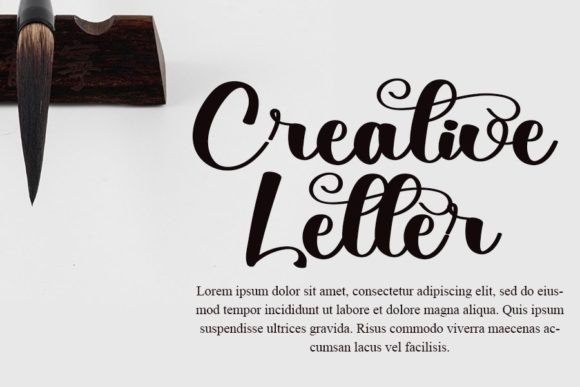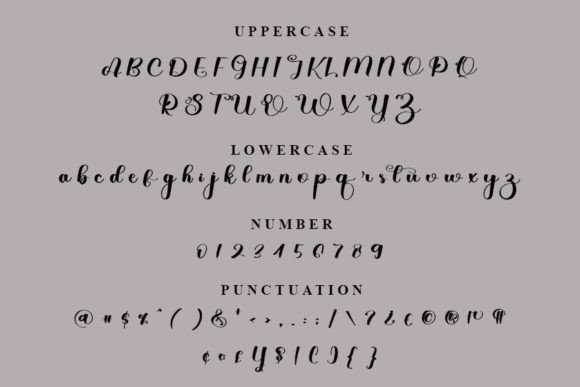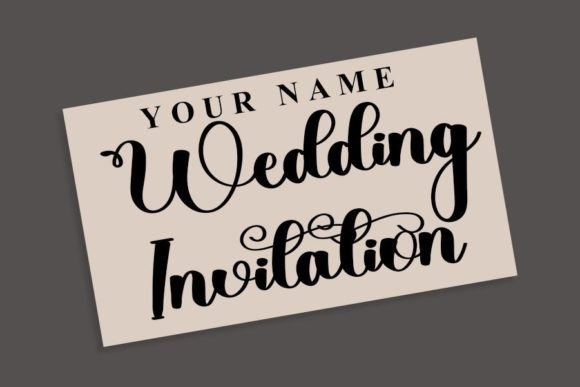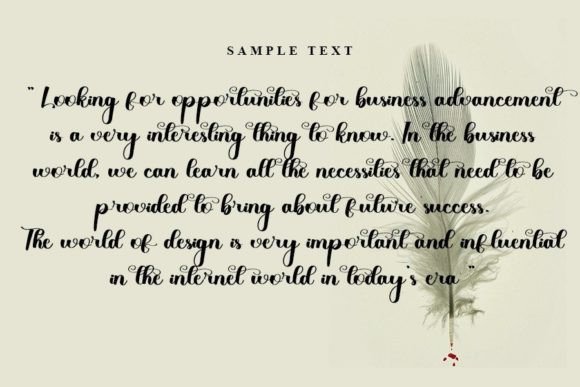
About Yasmine Font
Yasmine is a stylish handwritten font with a contemporary atmosphere and impeccable form, inspired by timeless classic calligraphy. Balanced and varied, this font will enhance the beauty of your projects.